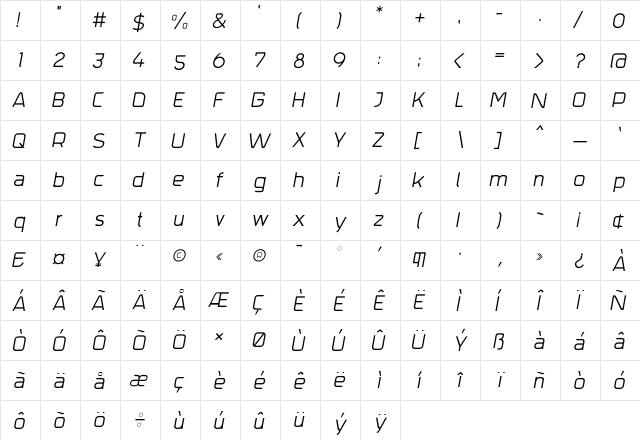
Trak Italic
Design Context for Trak Typeface
Trak offers clean, dependable letterforms without strong stylistic allegiance, making it a practical choice for designers who need flexibility. The slanted form adds forward momentum and visual energy.
Pro Tip: Try Trak for annotation and caption copy alongside an upright companion — the contrast in angle creates a dynamic but ordered typographic system.